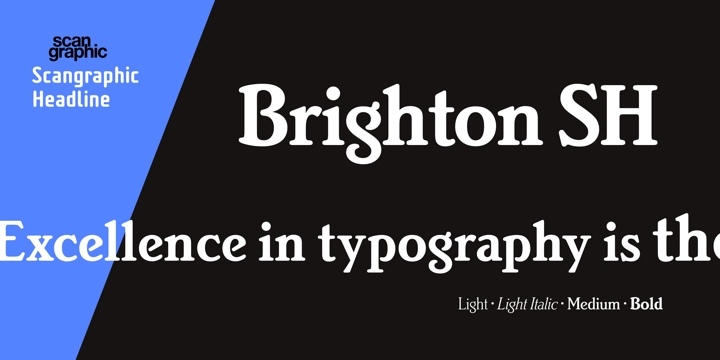
Brighton SH Font
Brighton SH Font is perfect for British coastal tourism, seaside resort branding, English seaside café signage, pier entertainment graphics, coastal hospitality materials, Victorian-inspired designs, British heritage projects, beach festival promotions, seaside wedding invitations, coastal real estate marketing, English seaside lifestyle blogs, and charming projects that require quintessentially British typography with coastal sophistication and seaside elegance.
What makes Brighton SH Font so exciting is its quintessential British coastal charm and seaside sophistication that embodies the timeless appeal and cultural heritage of England's beloved seaside towns and coastal traditions. This typeface features elegant letterforms with British characteristics and seaside-inspired details that evoke the charm of Victorian piers, the elegance of seaside promenades, and the kind of coastal sophistication that defines England's most cherished seaside destinations. The font's British character and coastal appeal make it perfect for tourism brands and heritage projects that want to communicate authentic British charm, coastal elegance, and the kind of seaside sophistication that celebrates England's maritime heritage.
Brighton SH Font typically comes in multiple weights and styles including Light, Regular, Medium, and Bold variations. Many versions also include British ornaments, coastal decorative elements, and seaside-themed symbols that enhance the font's heritage functionality and provide designers with comprehensive tools for creating authentic, British-inspired typography compositions that capture the charm of English coastal culture and Victorian seaside elegance.
Experience British coastal charm with the seaside sophistication of Brighton SH Font Free Download. This heritage-focused typeface brings together British cultural tradition with contemporary design functionality, making it an essential tool for tourism professionals and heritage brands that need to create memorable, authentically British communications that resonate with audiences seeking genuine coastal experiences and English seaside charm. The font's British character ensures your coastal projects will convey authentic heritage and seaside sophistication.
Whether you're designing British tourism materials, coastal hospitality branding, or seaside heritage communications, Brighton SH Font delivers exceptional British authenticity and coastal elegance that connects with audiences who appreciate English cultural heritage and seaside traditions. Its sophisticated, distinctly British appearance works beautifully with coastal color palettes and heritage imagery, creating designs that feel both authentically English and contemporarily appealing.
The elegantly crafted letterforms of Brighton SH Font demonstrate deep appreciation for British typographic traditions and coastal design heritage. Each character has been designed to honor the sophisticated charm of English seaside culture while ensuring excellent readability for contemporary tourism and heritage applications, making it particularly valuable for British communications where typography must convey both cultural authenticity and the welcoming appeal of England's cherished coastal destinations.